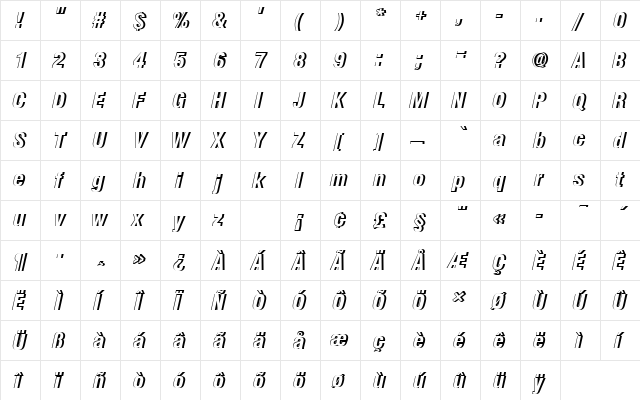
NimbusSanDBlaConItaRe1 Regular Font Preview
NimbusSanDBlaConItaRe1 Regular
NimbusSanDBlaConItaRe1 Regular Font Details
Design Context for NimbusSanDBlaConItaRe1 Typeface
NimbusSanDBlaConItaRe1 offers clean, dependable letterforms without strong stylistic allegiance, making it a practical choice for designers who need flexibility.